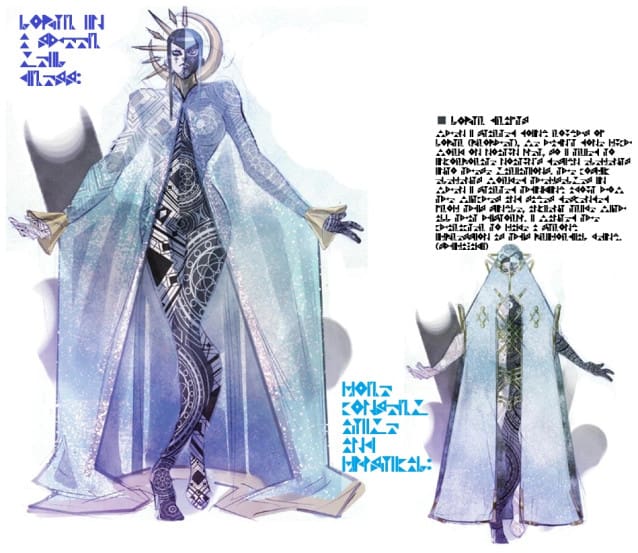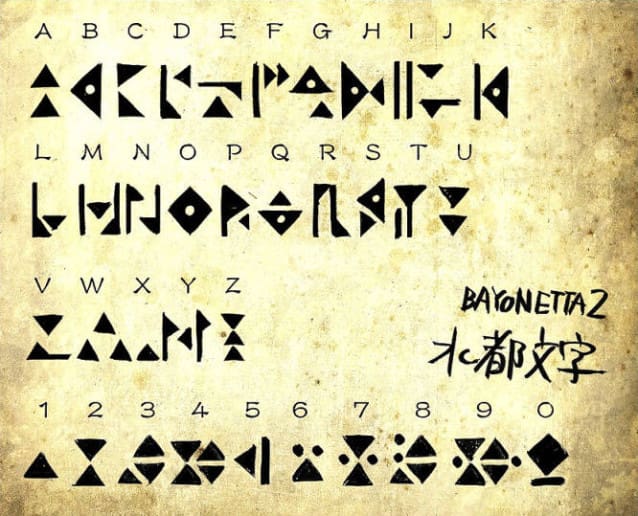
Noatun Alphabet (Bayonetta) Font
Noatun Alphabet Font – This font is the script of the Noatun Alphabet which is used by the citizens and deities of the Noatun/Noatún region in the game Bayonetta 2. It can be utilised for its original languages, Enochian and English, as well asa few other languages such as German and Finnish.
The original Latin letters and numerals were designed by Mai Ohkura. I designed the letters with diacritical markers such as ú, and I also designed/drew a variety of commonly used symbols in Western Latin-based fonts.
E.g.: The letter ß is a combination of S and Z and the logical not is a combination of the letters N and O stacked on top of each other.
Since this alphabet uses letters which have a lot of the same style choices, I wasn’t able to come up with too many more diacritical letters and thus limited the number.
Designer Name: Akuma